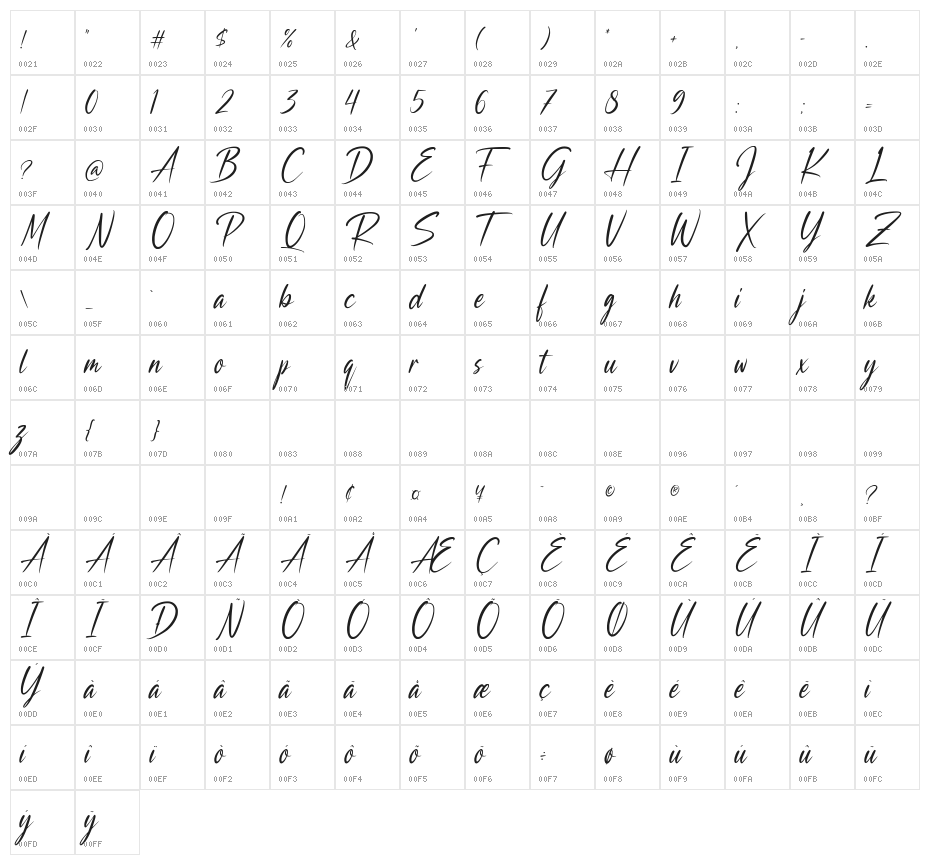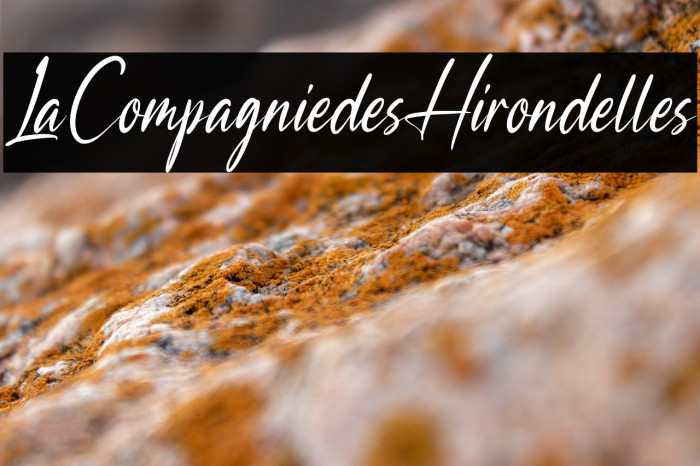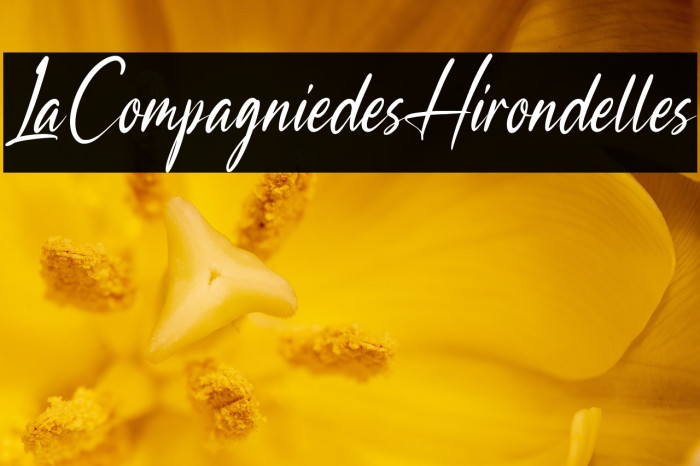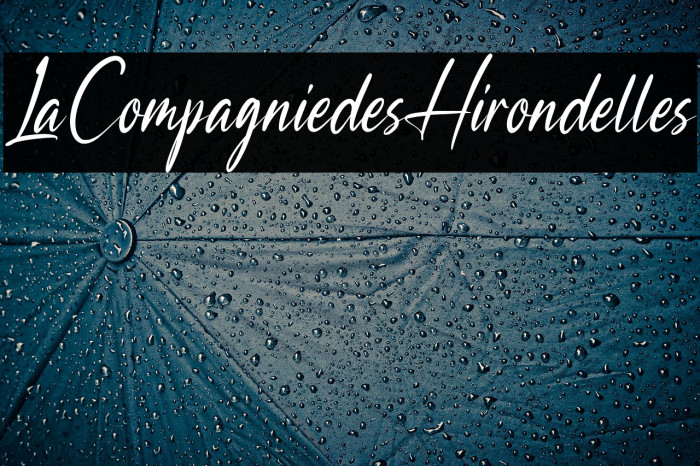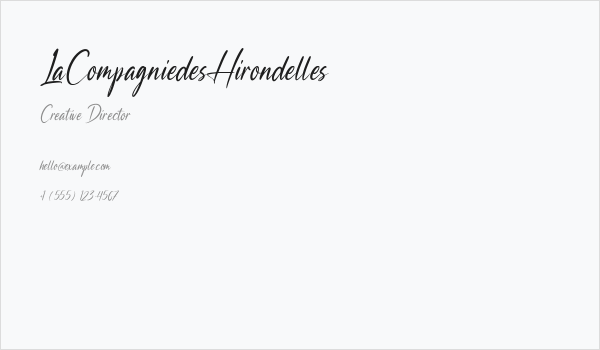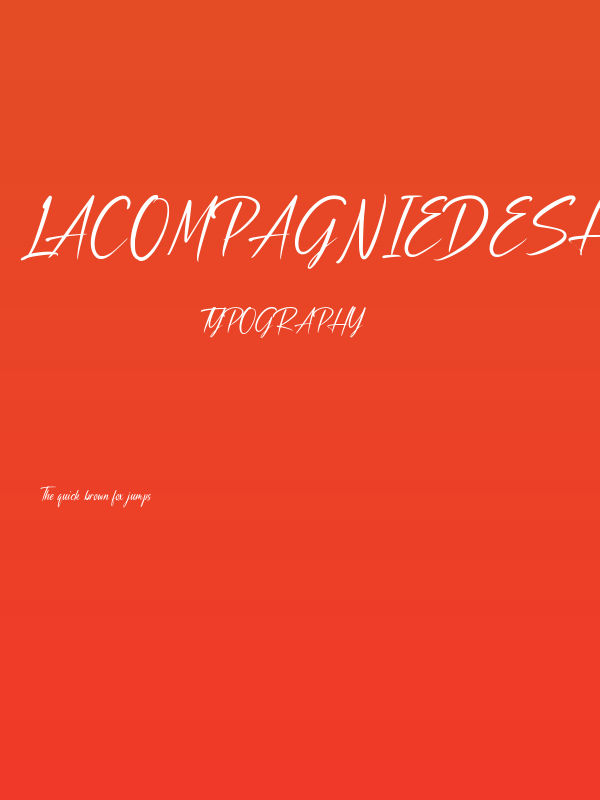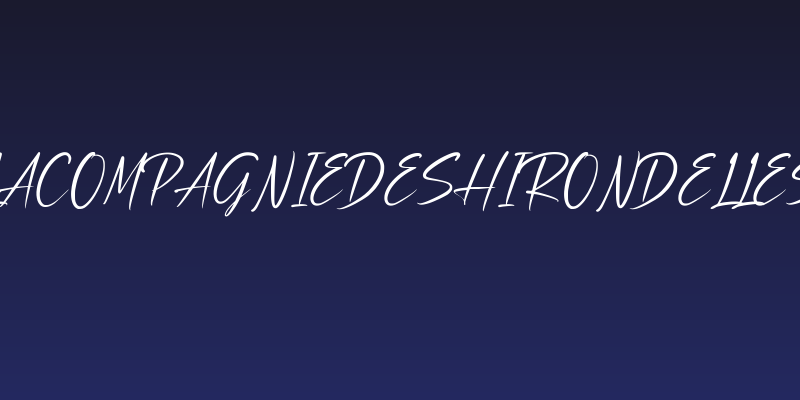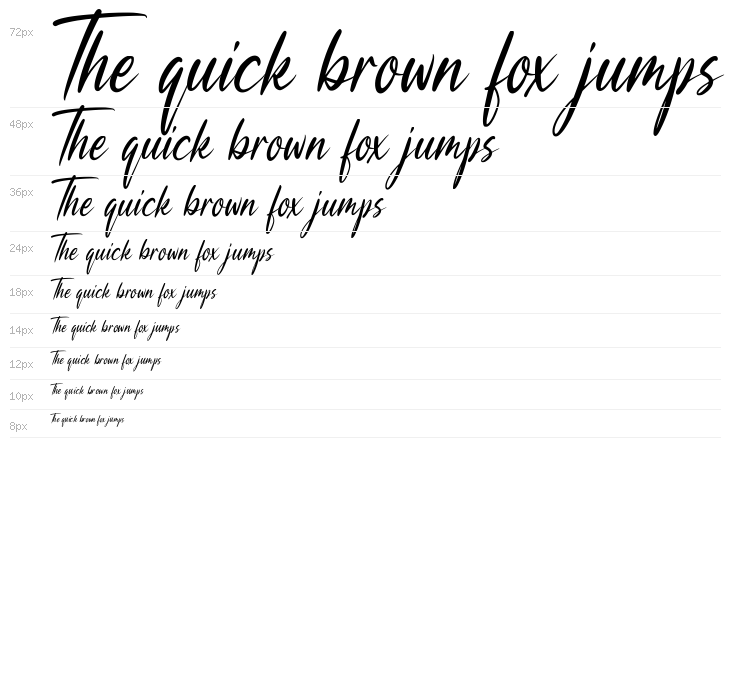
LaCompagniedesHirondelles Font
LaCompagniedesHirondelles Description
This font features a dynamic and flowing script style, characterized by its elegant and fluid strokes. The uppercase letters exhibit a sense of movement and grace, with each character seamlessly connecting to the next. The lowercase letters maintain this fluidity, offering a harmonious and cohesive appearance. The numerals are crafted with the same attention to detail, ensuring consistency throughout. Special characters are thoughtfully integrated, enhancing the font's versatility. This script font exudes a sense of sophistication and charm, making it ideal for projects that require a personal and artistic touch.
| Proposed Projects | Ideal for wedding invitations, greeting cards, branding, and artistic projects. |